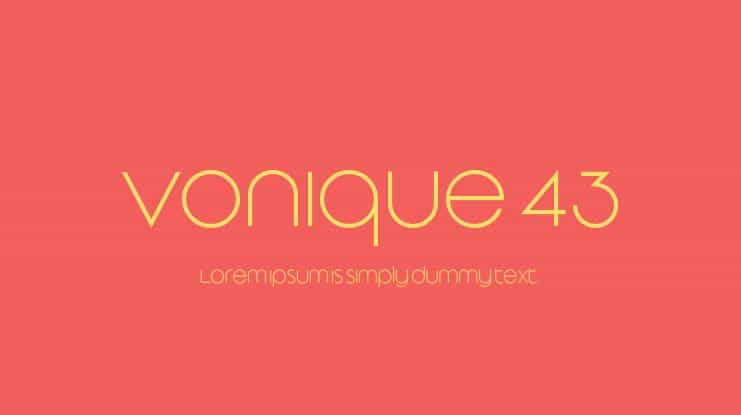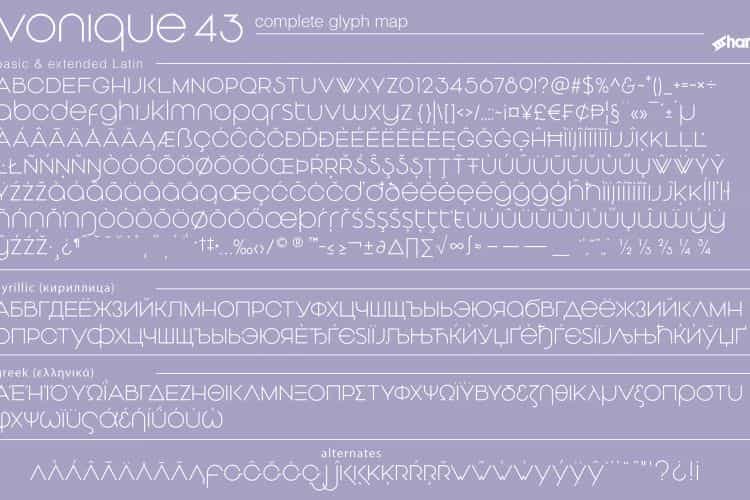
Vonique 43 Font is a contemporary and simple sans serif typeface! This is a contemporary sans serif typeface created to be legible. It is made and offered by Sharkshock. Sleek. Undeniably sexy. The 3rd part of the Vonique family attracts people so much that they have to stop and look at it. Lots of the old characters are back but it is the curvaceous lowercase ones that give this font its identity.